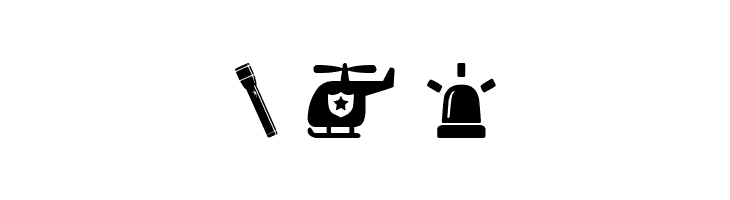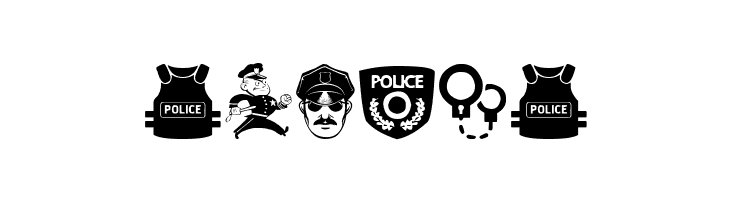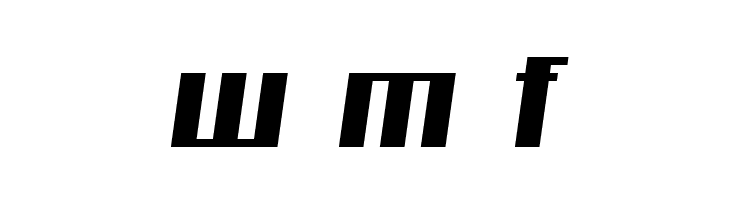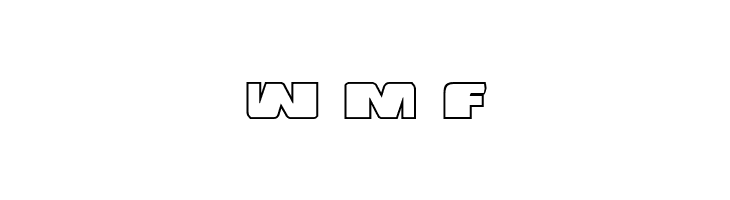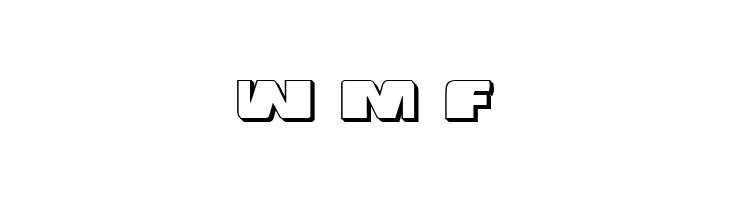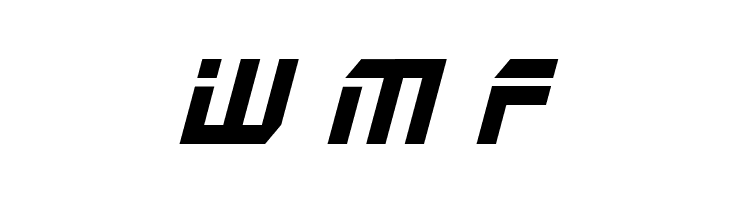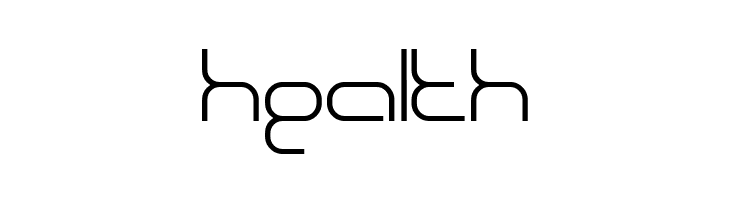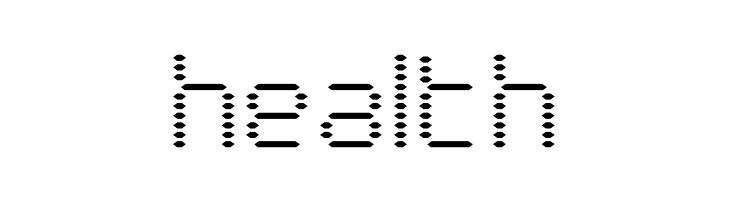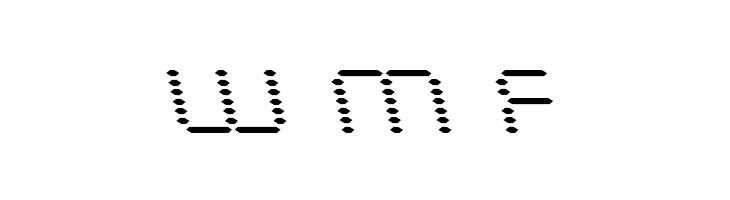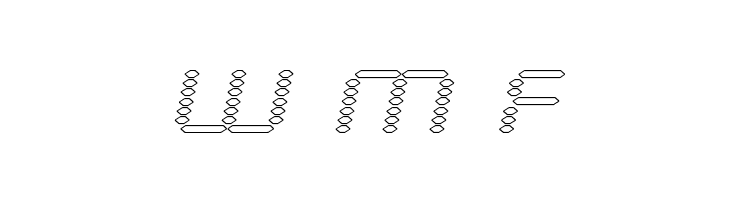
BN Police Font
Font by Ben Nathan
A modern, geometric font with clean lines and a minimalist aesthetic.
1742Frenchcivilite Font
An ornate, historical script font with intricate flourishes and a decorative style.
Kitchen police Font
Font by Jacob Fisher - www.pizzadude.dk
A bold, angular font with a geometric and modern style.
Police Font
Police and law enforcement icon set in bold, simple silhouettes.
Policemen Black Font
A bold, geometric sans-serif font with a modern and structured design.
Mars Police Font
Font by www.blambot.com
Policemen Regular Font
A modern, geometric sans-serif font with a tall, condensed structure.
Byte Police Font
Font by Daniel Zadorozny - www.iconian.com
A dot matrix font with a digital, retro aesthetic.
Police Cruiser Condensed Font
Bold, condensed font with a modern, geometric style.
Police Cruiser Condensed Italic Font
A bold, condensed, and italicized font with a dynamic and impactful style.
Police Cruiser Regular Font
A bold, geometric font with a strong, commanding presence.
Police Cruiser Italic Font
A bold, italic font with a dynamic and robust style, ideal for impactful designs.
Mars Police Italic Font
Font by www.blambot.com
A bold, italicized font with sharp, angular edges and a futuristic style.
Thought Police Font
A bold, geometric font with a modern, digital aesthetic.
Policemen Light Font